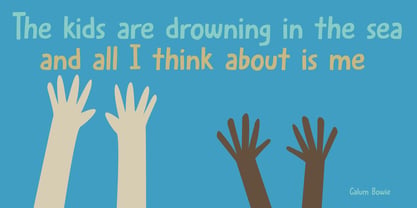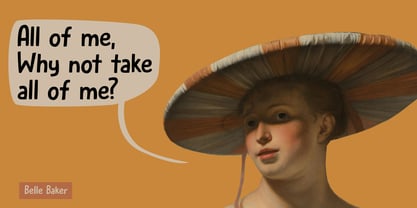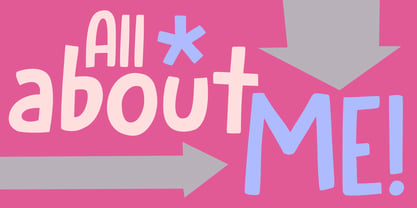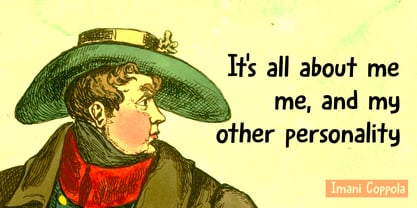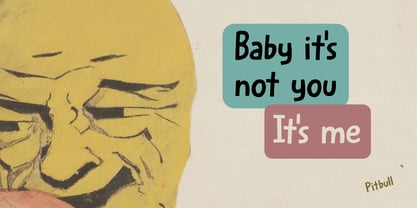
All About Me
by Hanoded
The All About Me Font Family was designed by David Kerkhoff and published by Hanoded. All About Me contains 2 styles and family package options. More about this family
Hello, you there! Yes, you! I made this font especially for YOU! ;-) Well, not really, but it would be exemplary for the world we live in, where it is basically All About Me! With exclamation mark! All About Me! is a nice, handmade cartoon font. I can tell you that it will look good on your book covers and product packaging — probably even on toys and stickers, but you all ready know that. You’re so smart! After all, it’s All About You!
Designers: David Kerkhoff
Current Foundry: Hanoded
Hanoded is run by Dutchman David Kerkhoff. His fonts are a mishmash of styles, as he just creates whatever pops into his head. You will find a lot of brush fonts in his collection, as his favourite tools are brushes and Chinese ink, with cartoon style fonts and script fonts complementing his repertoire. Aside from making fonts, David occasionally guides tours in far-flung places, renovates his '30's house and tries reasoning with his wife and (teenage) kids. Not an easy task!